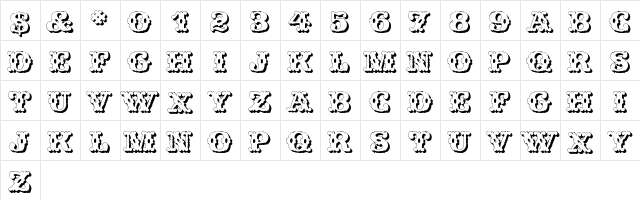
Wild West Shadow Regular
Design Context for Wild West Shadow Typeface
Wild West Shadow brings ornamental detail and strong personality to headlines and identities, where visual impact matters more than quiet functionality.
Font Pairing: Pair with a clean neutral sans-serif for body copy to let Wild West Shadow's character lead without overwhelming the composition.
Pro Tip: Use Wild West Shadow exclusively at display sizes — it was designed to be seen, not read at length. Let a neutral companion handle body copy.